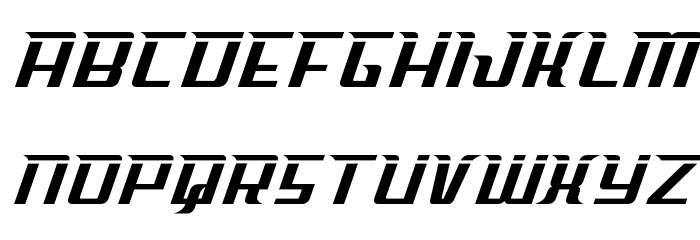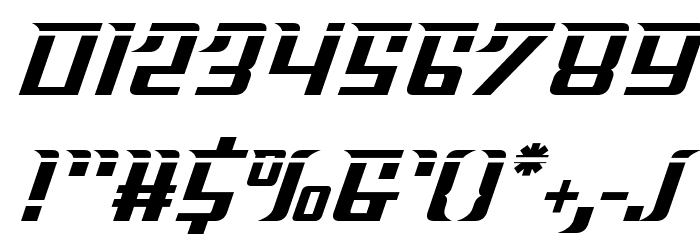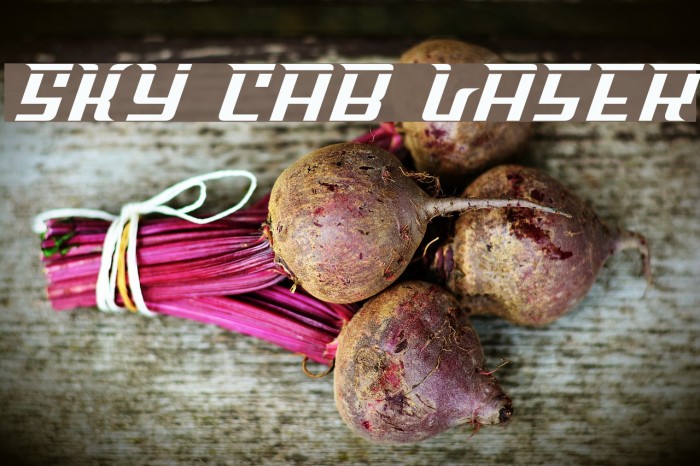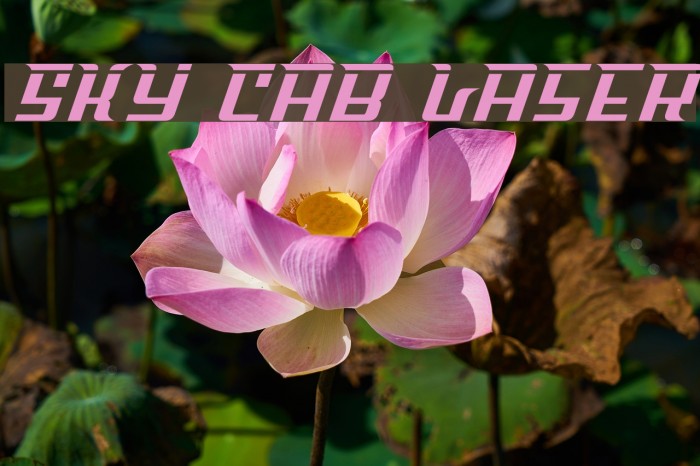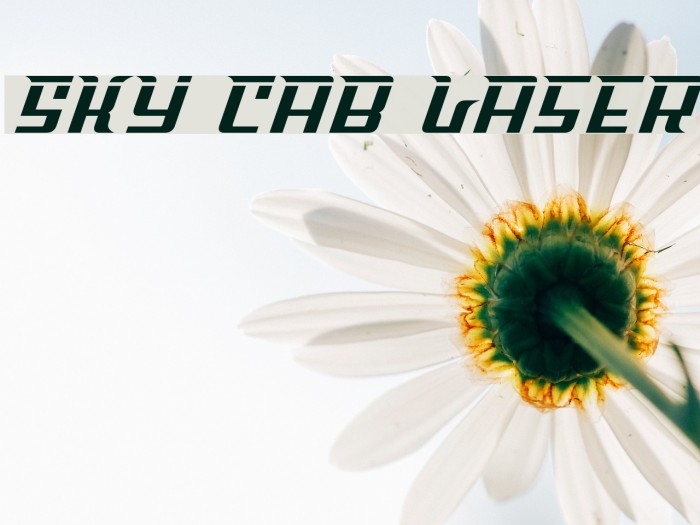
Sky Cab Laser Font
This font features a futuristic and dynamic design with sharp angles and a bold presence. The characters are constructed with a distinct slant, giving them a sense of motion and speed. The uppercase and lowercase letters maintain a consistent style, with the uppercase being more prominent. Numbers and special characters follow the same angular and slanted design, ensuring uniformity across all glyphs. The font's unique style makes it stand out, ideal for projects that require a modern and edgy look.
A futuristic, angular font with a bold and dynamic style.
- Proposed Projects: Ideal for sci-fi themed projects, video game titles, technology branding, and modern posters.